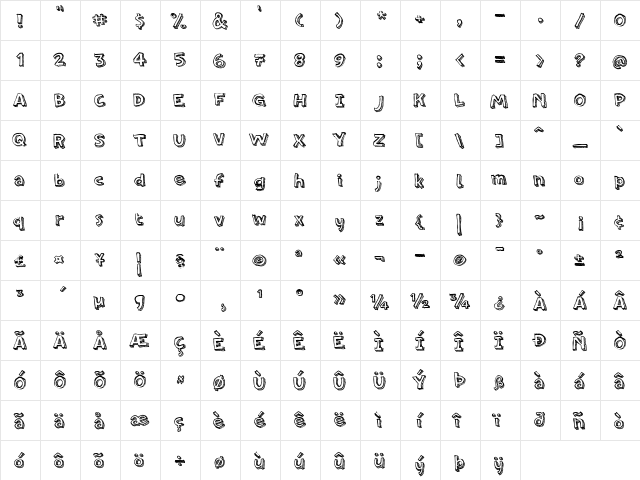
PF Amateur Line Shadow
| Foundry | Parachute蠗orldwide |
| Designer | Charis Tsevis |
Design Context for PF Amateur Typeface
PF Amateur is built around its visual character rather than neutral utility — its distinctive forms are designed to make an impression at display sizes.
Font Pairing: Pair with a clean neutral sans-serif for body copy to let PF Amateur's character lead without overwhelming the composition.
Pro Tip: Use PF Amateur exclusively at display sizes — it was designed to be seen, not read at length. Let a neutral companion handle body copy.